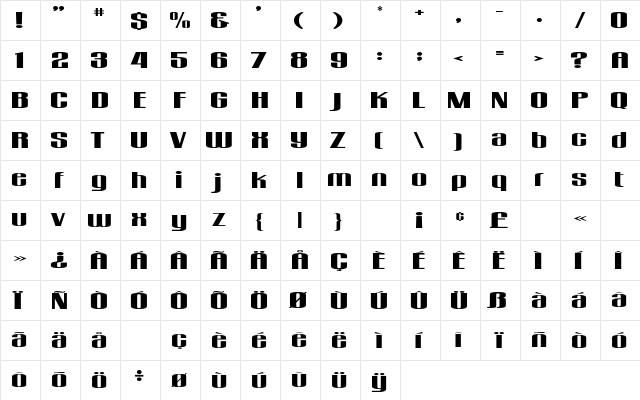
gogo "squat Regular
Design Context for gogo "squat Typeface
gogo "squat offers clean, dependable letterforms without strong stylistic allegiance, making it a practical choice for designers who need flexibility.